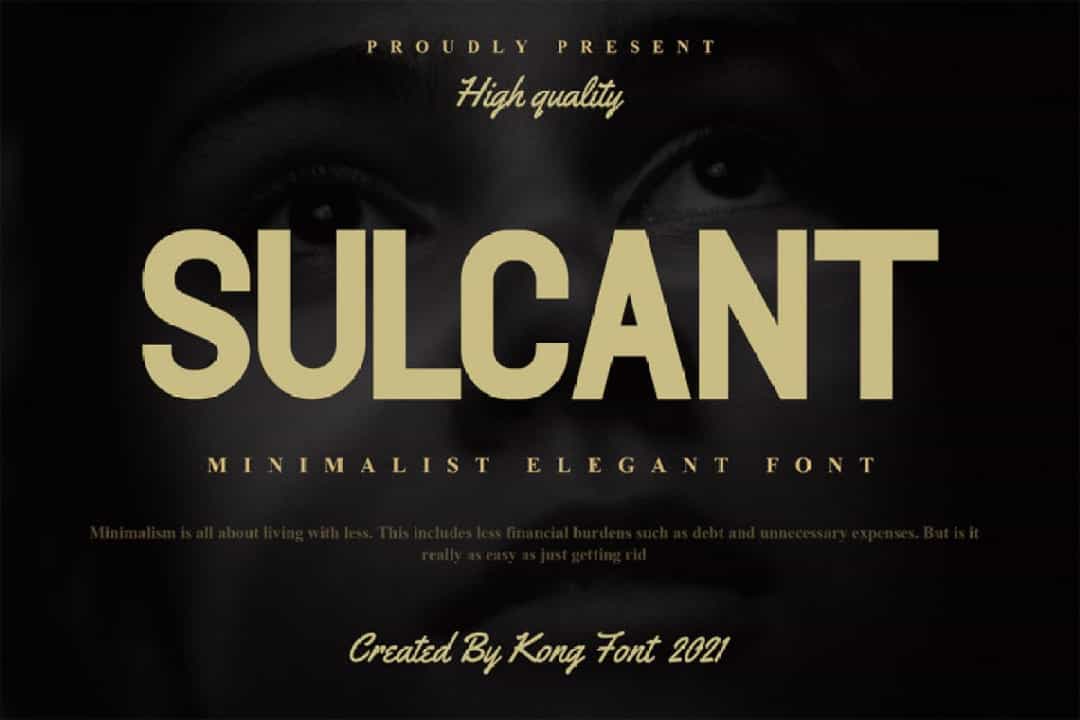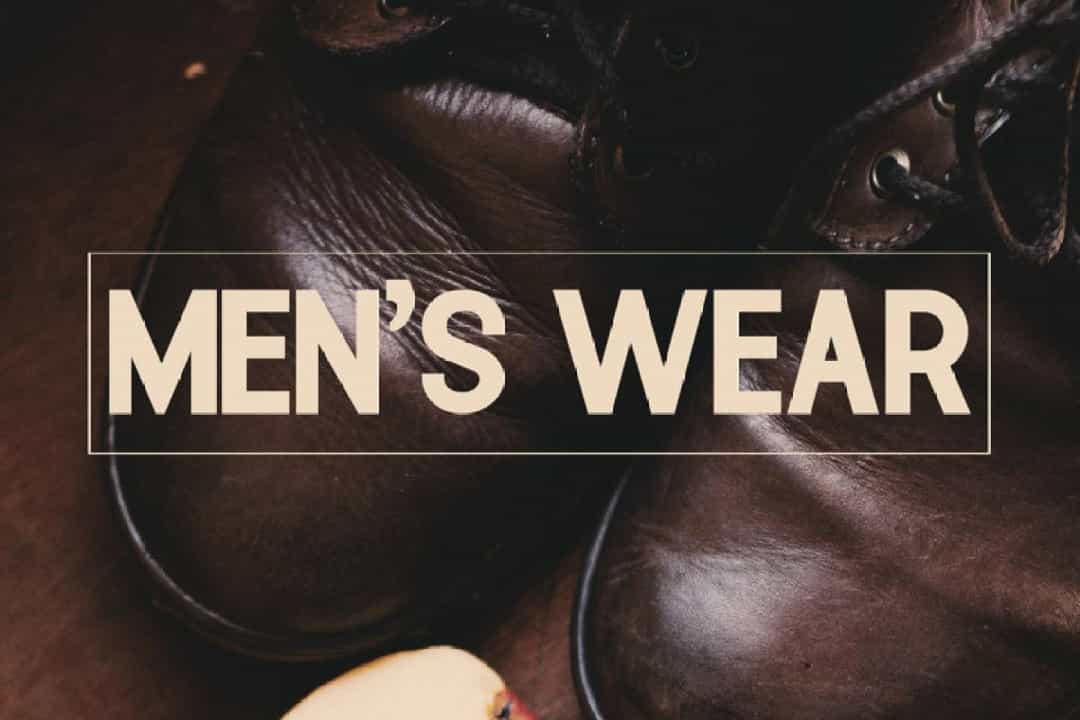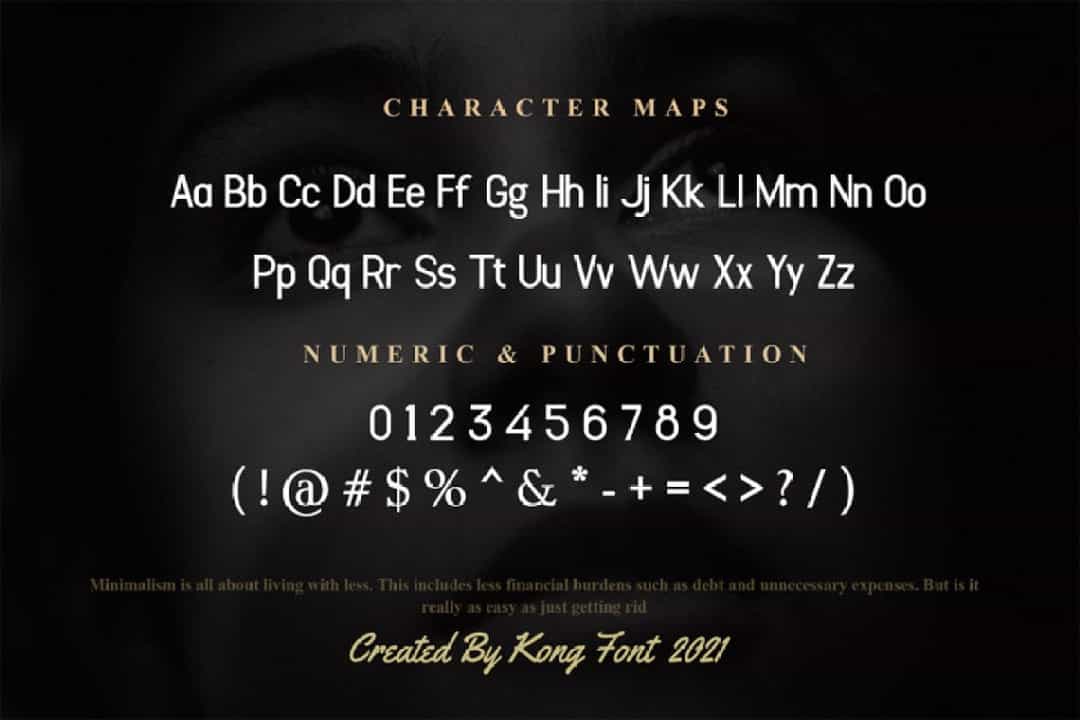
Sulcant is an elegant sans serif font perfect for creating stunning invitations for birthdays, weddings and any other special occasions. A set of letters and numbers make up Sulcant which works well when creating invitations or other projects such as Logotype Designing, Branding Designs, Logo Designs, Digital Lettering Arts T-shirt/Apparel Posters Magazine Signs Advertising Designs as well as branding projects of any sort.